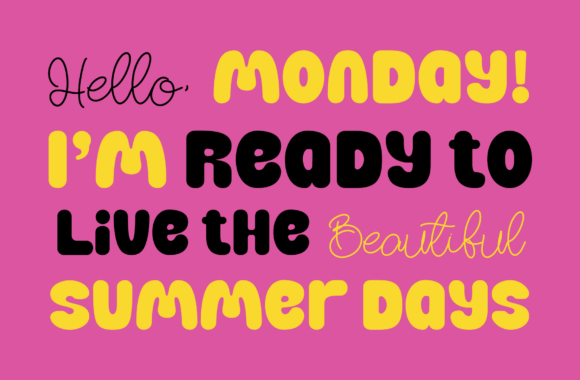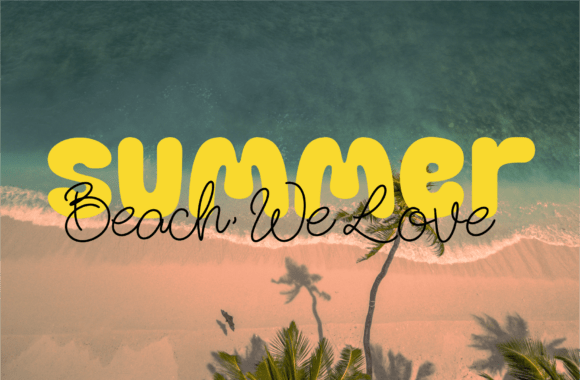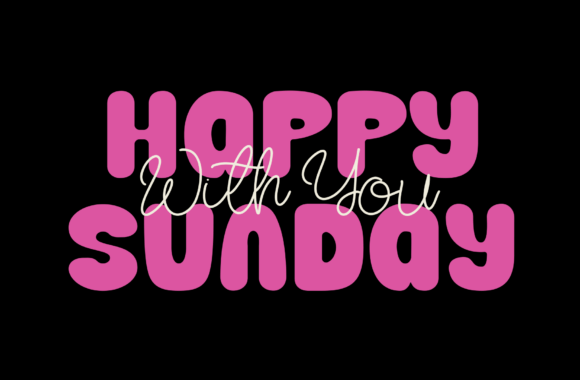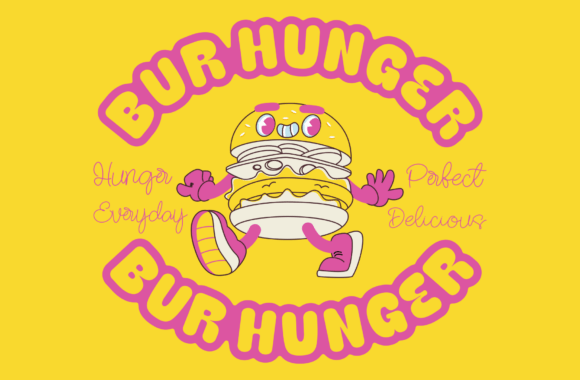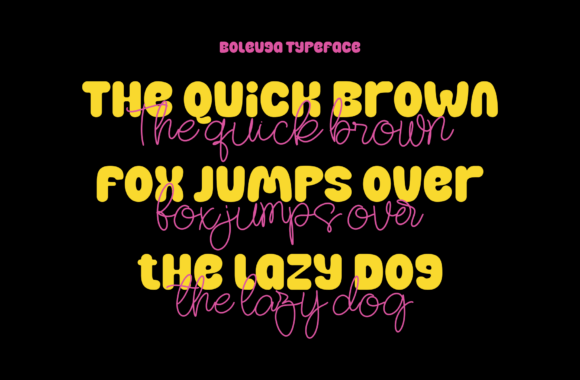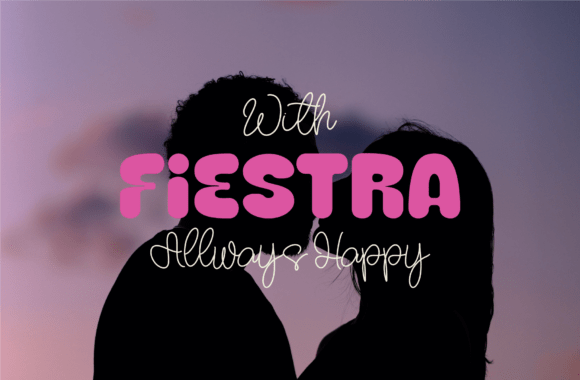
Introducing the Boleuga Duo Font: A Delightful Pairing for Playful Typography
In the world of typography, finding the perfect font duo that combines both boldness and elegance can be a daunting task. However, the Boleuga Cartoon Font Duo is here to revolutionize your design projects with its unique pairing of a bold, “bubbly” display typeface and a playful, hand-lettered script. This delightful duo is designed to bring a cheerful personality to your titles, posters, product packaging, children’s content, and branding, making it an excellent choice for designers and crafters looking to capture a youthful, lighthearted, and expressive visual identity.
The Bold Display Typeface: A Soft, Cartoon-Like Appeal
The primary style of the Boleuga Duo Font features rounded, chunky characters with a soft, cartoon-like appeal that radiates friendliness and fun. This bold design makes it highly legible and impactful, perfect for grabbing the attention of your audience. The rounded edges and chunky design evoke a sense of playfulness, making it an ideal choice for projects that require a cheerful and approachable visual identity.
Some of the key features of the bold display typeface include:
- Rounded, chunky characters for a soft, cartoon-like appeal
- Highly legible and impactful design for titles, posters, and headings
- Perfect for children’s content, product packaging, and branding that requires a cheerful personality
The Playful Hand-Lettered Script: A Fluid, Casual Elegance
The secondary handwritten script of the Boleuga Duo Font offers a fluid, casual elegance with delicate strokes, balancing the boldness of the display style with a sense of charm and creativity. This playful script is perfect for adding a touch of sophistication and whimsy to your design projects. The delicate strokes and fluid design make it an excellent choice for adding a personal touch to your typography compositions.
Some of the key features of the playful hand-lettered script include:
- Fluid, casual elegance with delicate strokes
- Balances the boldness of the display style with a sense of charm and creativity
- Perfect for adding a personal touch to your typography compositions
A Harmonious Contrast: Mixing and Matching for Playful Typography Compositions
One of the standout features of the Boleuga Duo Font is the harmonious contrast between the bold display typeface and the playful hand-lettered script. This contrast allows designers to mix and match both fonts to create playful typography compositions that are both visually appealing and engaging. Whether you’re designing a title, poster, or product packaging, the Boleuga Duo Font provides the perfect combination of boldness and elegance to capture your audience’s attention.
The Boleuga Duo Font is an excellent choice for designers and crafters looking to add a touch of playfulness and creativity to their projects. Whether you’re working on a children’s book, designing a poster, or creating product packaging, this font duo provides the perfect combination of boldness and elegance to capture your audience’s attention. With its soft, cartoon-like appeal and fluid, casual elegance, the Boleuga Duo Font is sure to bring a cheerful personality to your design projects.
In conclusion, the Boleuga Cartoon Font Duo is a delightful pairing of a bold, “bubbly” display typeface and a playful, hand-lettered script. With its harmonious contrast, PUA encoding, and range of stylistic features and extras, this font duo is perfect for designers and crafters looking to capture a youthful, lighthearted, and expressive visual identity. So why not give the Boleuga Duo Font a try and take your design projects to the next level?